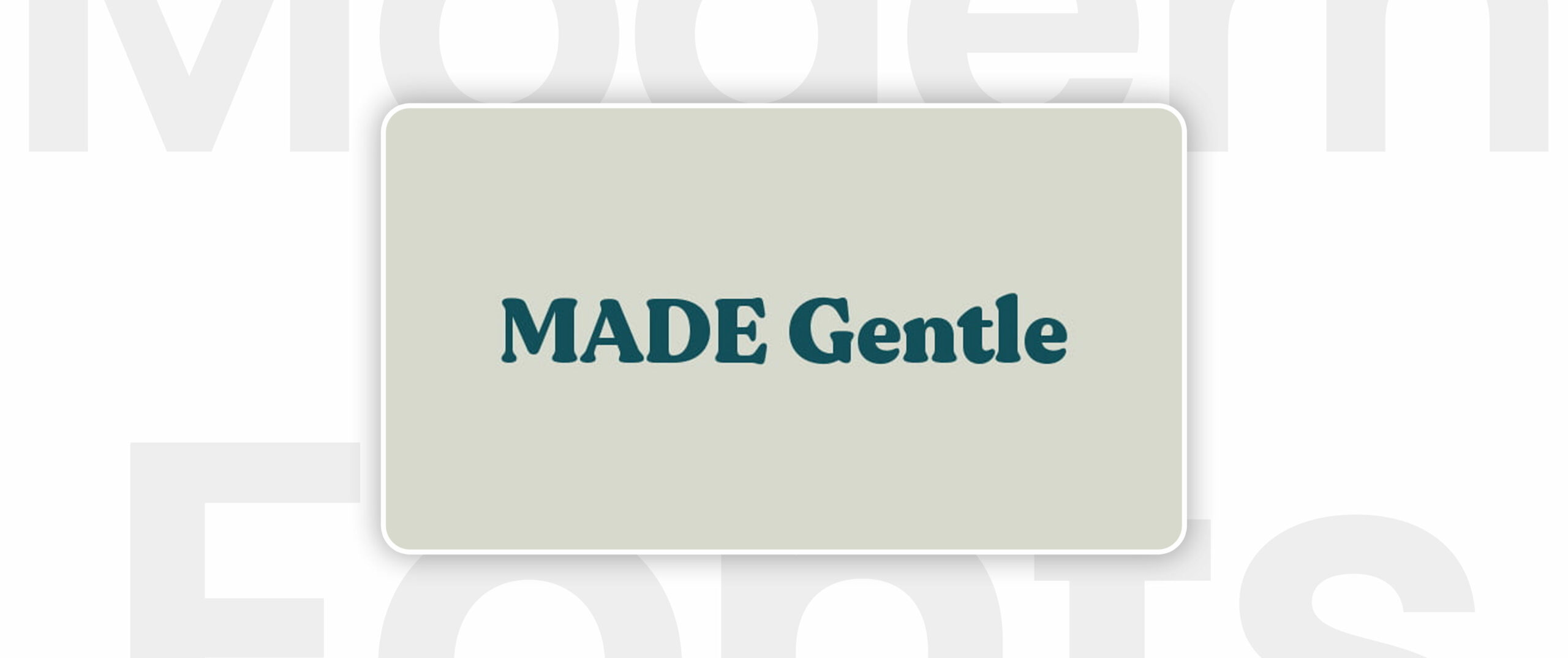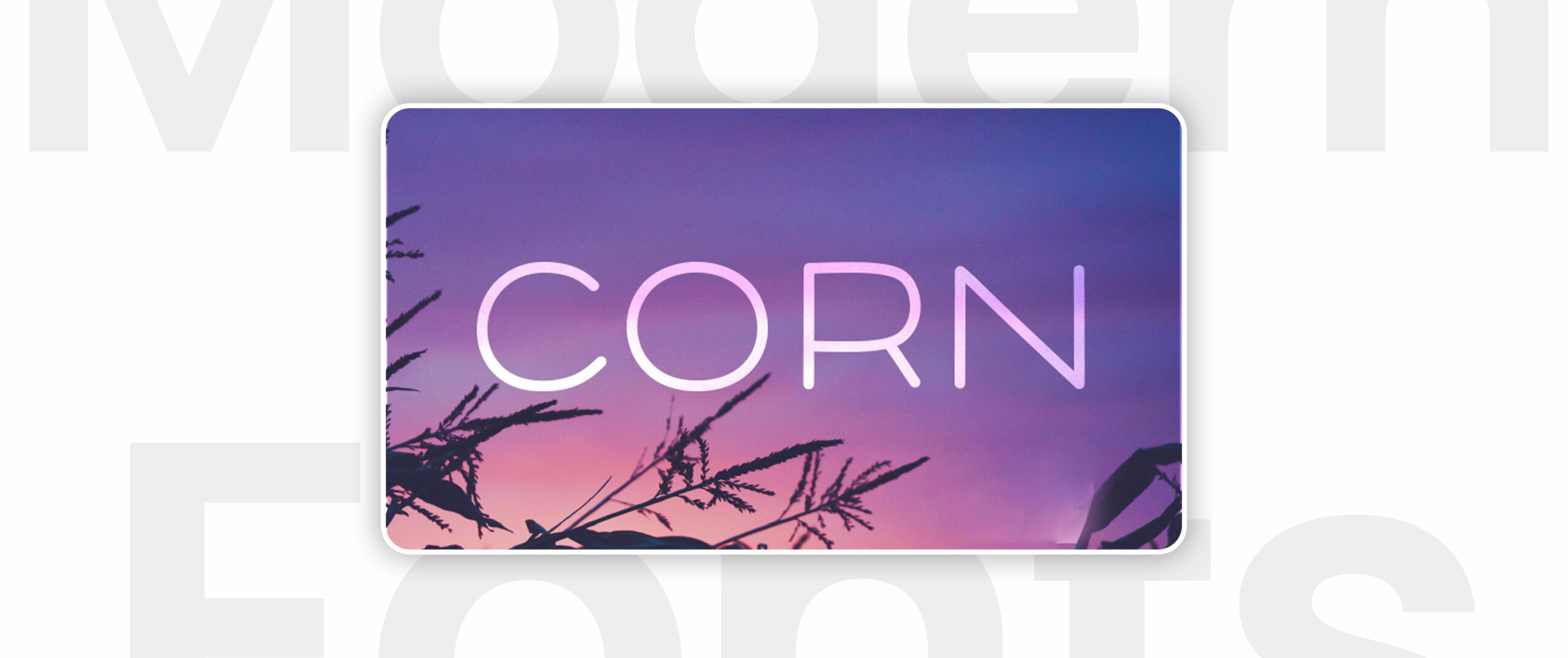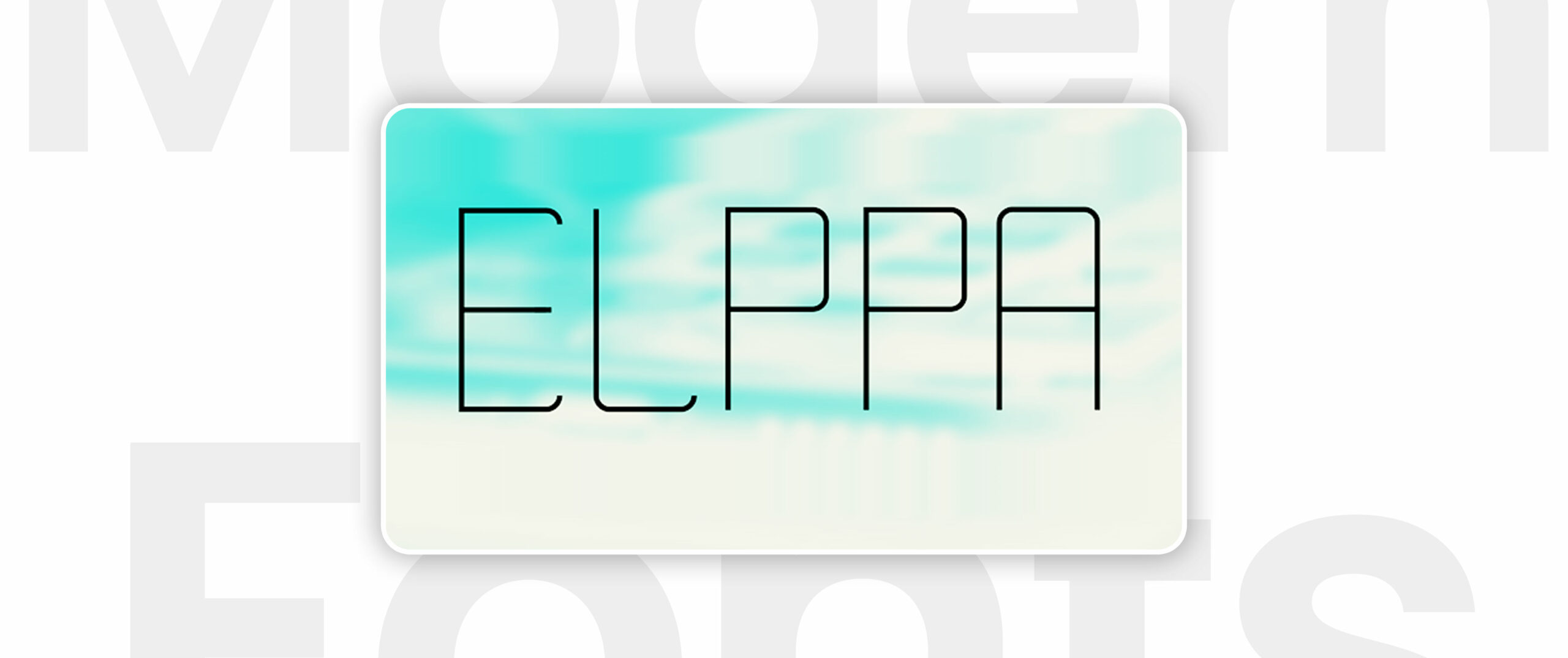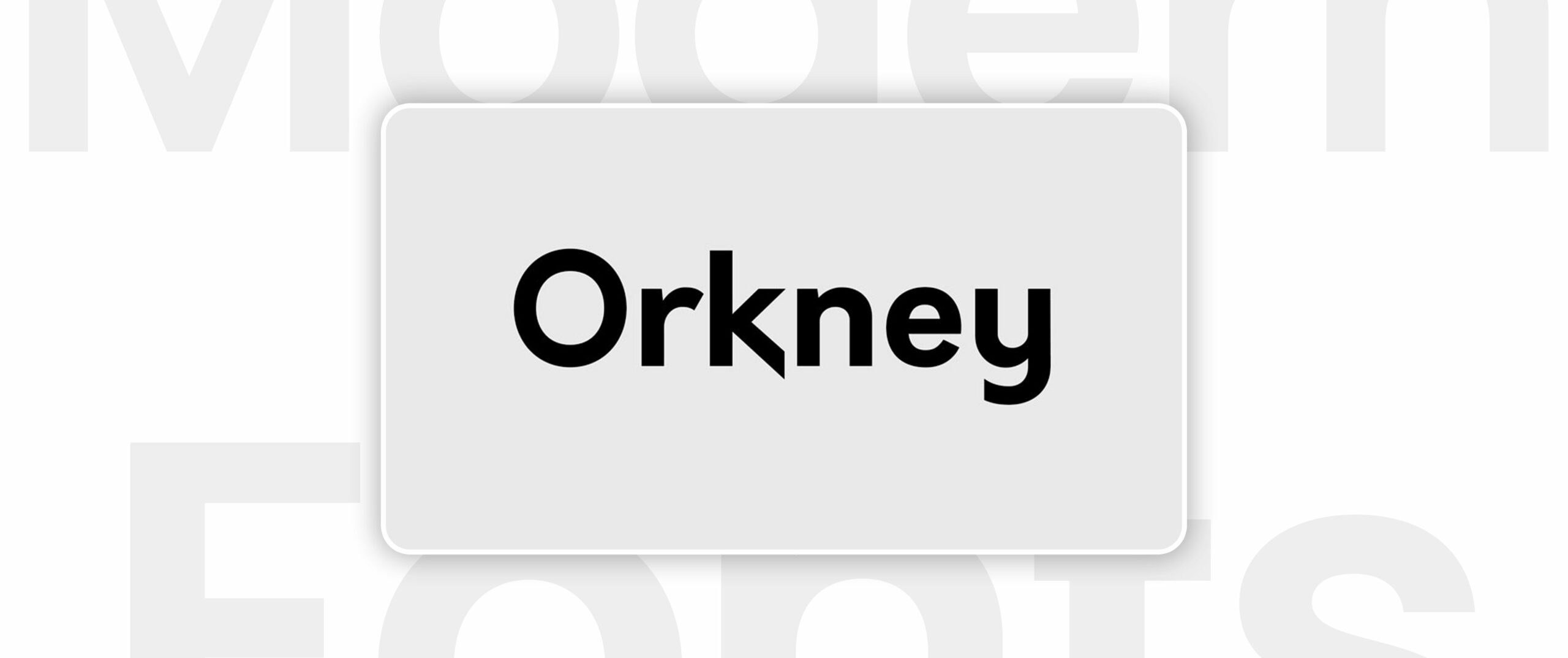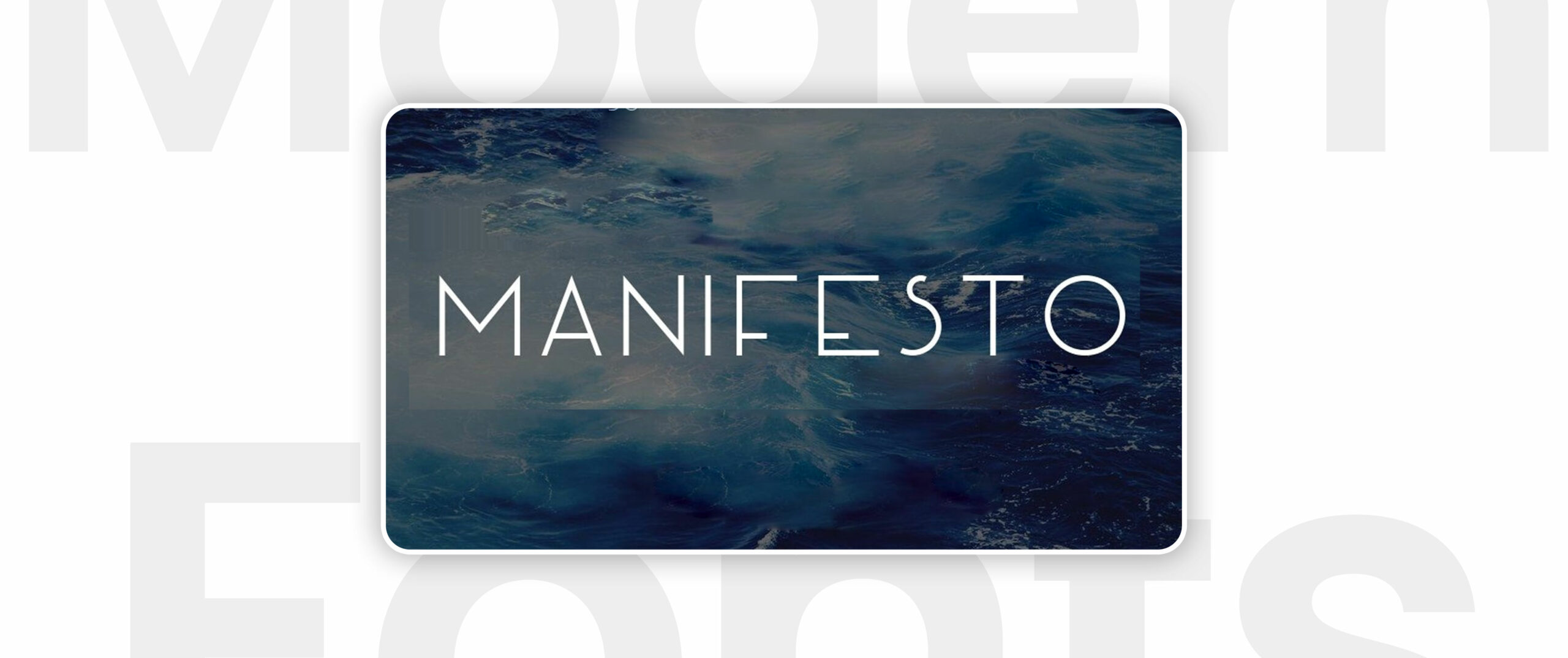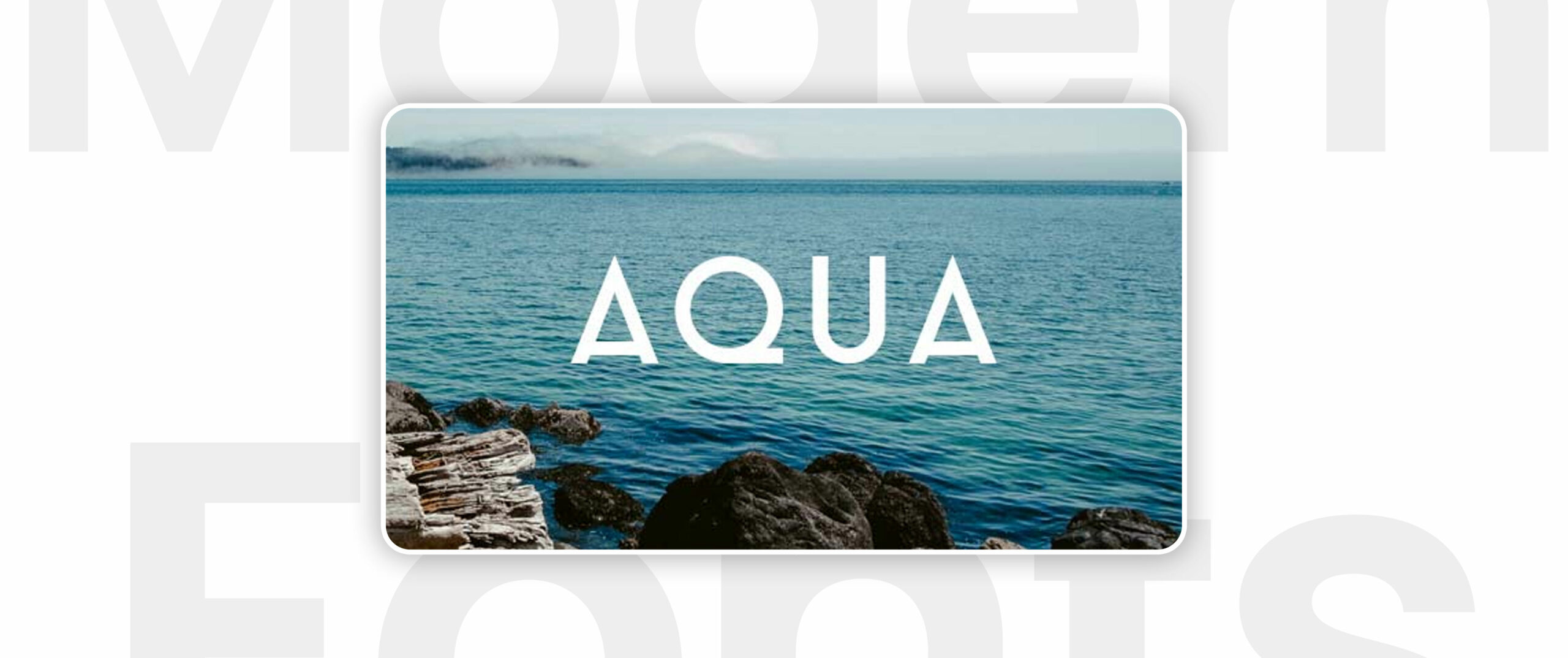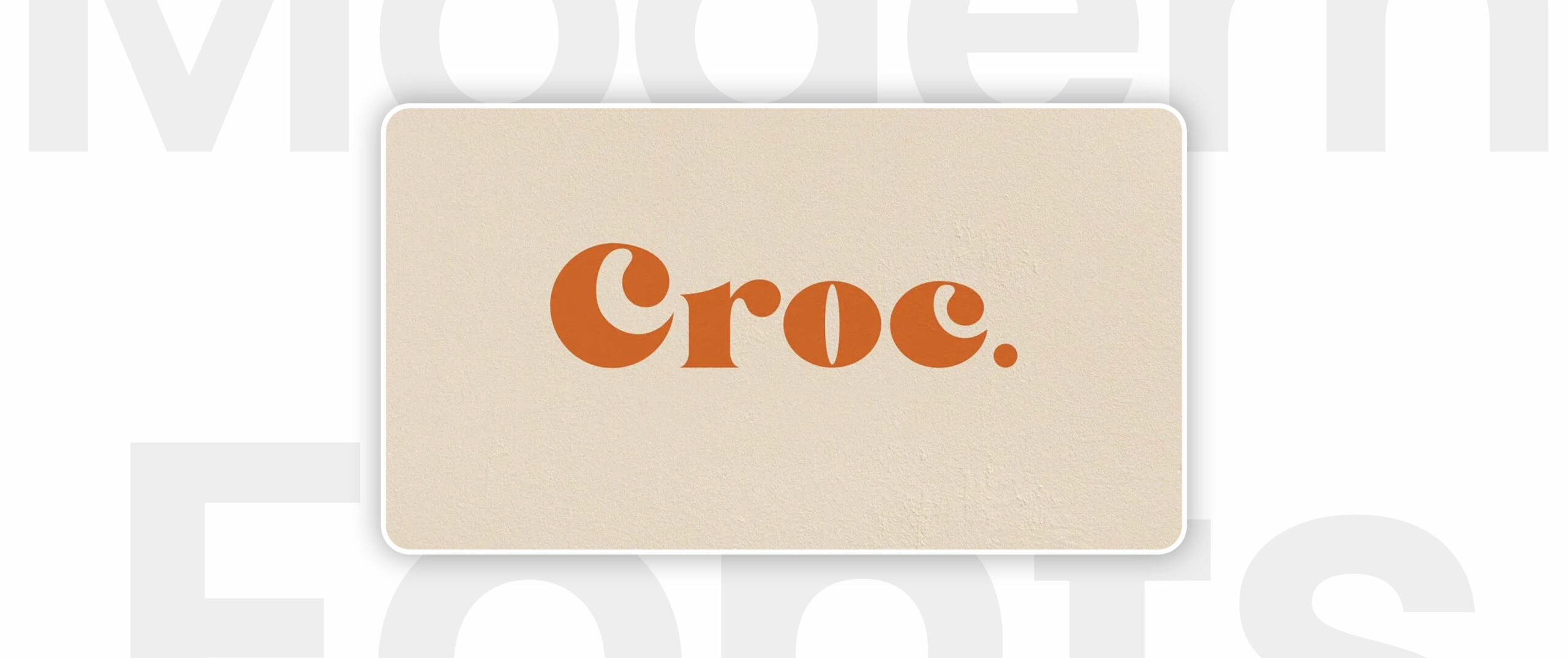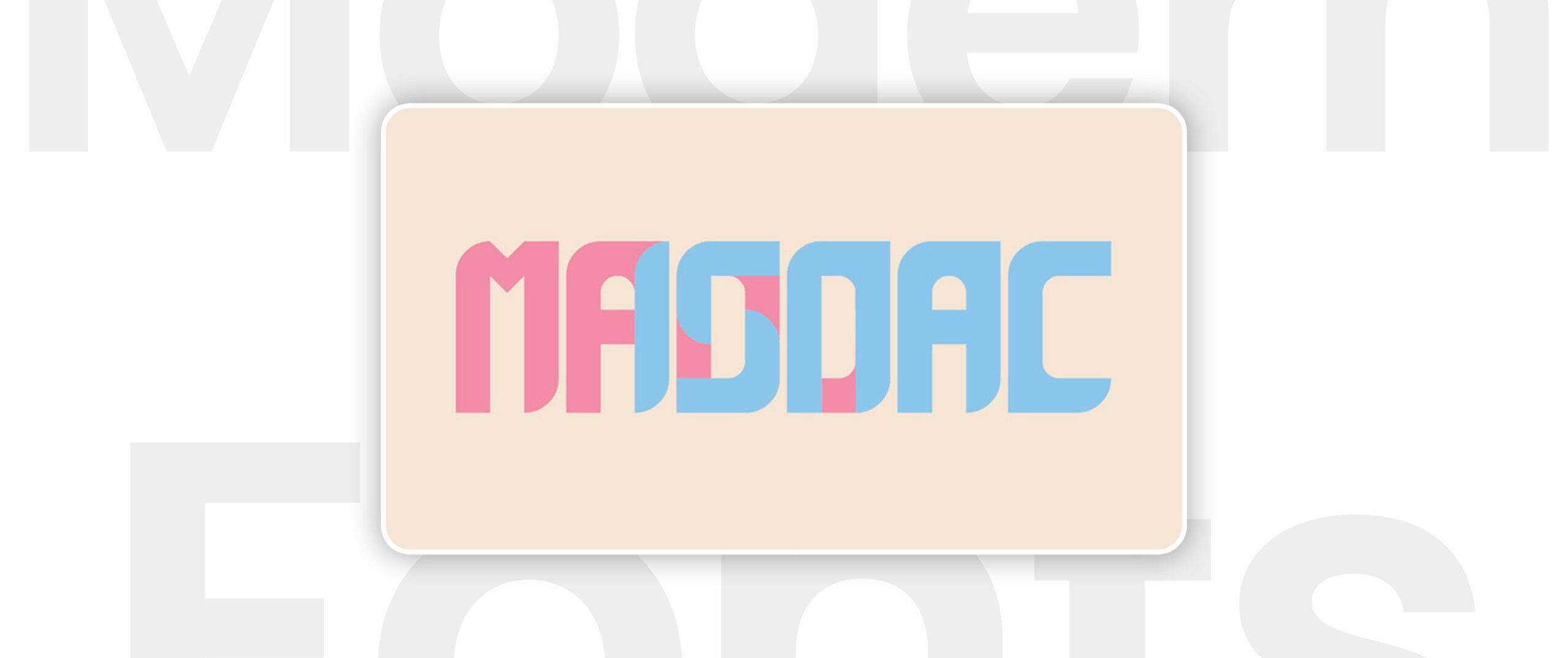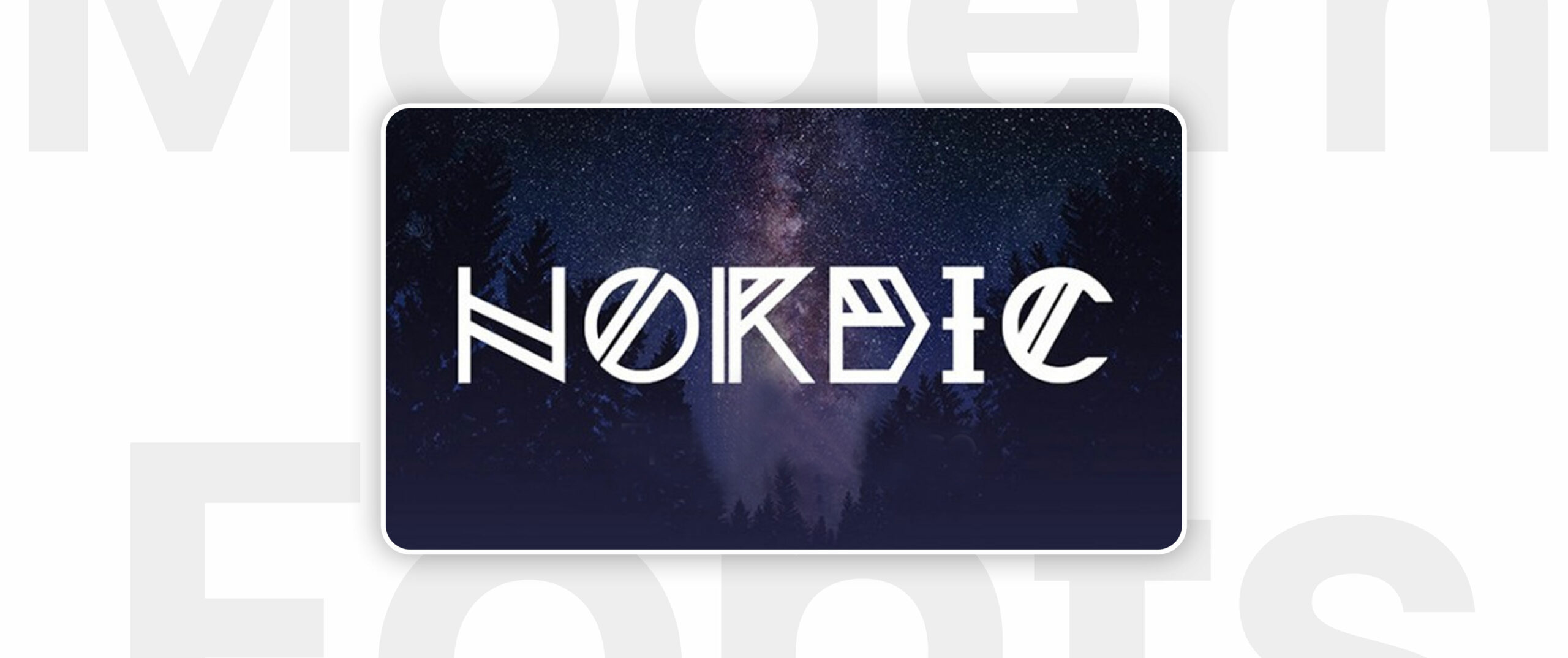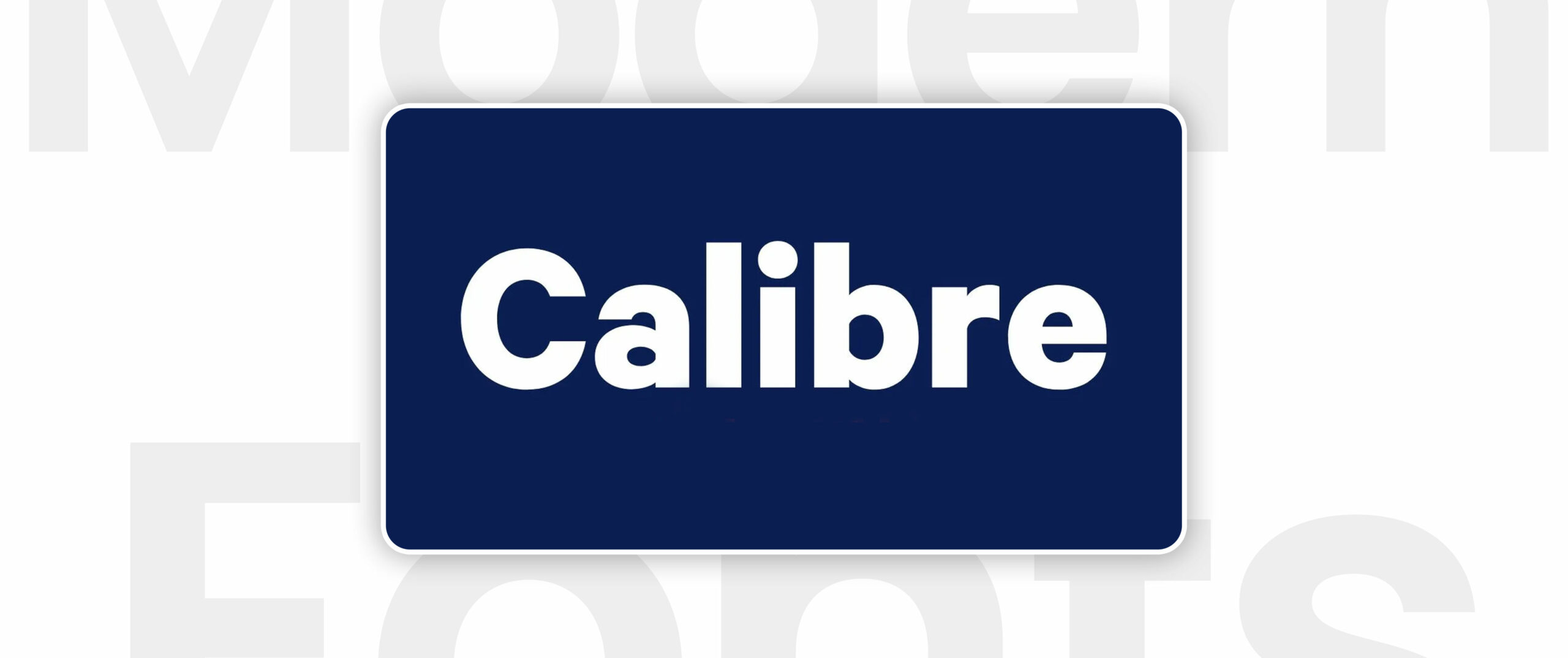
Top 24 Modern Fonts That Are Ruling the Design World
Choosing the right font can assist in designing a website or logo design that is visually pleasing and readable. However, given the abundance of fonts available, it can take time to decide where to begin.
This is where this blog post comes into play. We have put together a compilation of the 24 most popular modern fonts that dominate the design industry. All of these fonts are fashionable, flexible, and user-friendly. If you are a professional designer or simply aiming to upgrade the appearance of your website, you will definitely find the ideal font for your project.
Top 24 Modern Fonts of 2024
Following are the 24 most popular modern fonts. Stick with us to know which ones will make your designs pop!
Komoda
Komoda is a modern sans-serif typeface designed in a very minimalistic way. Because of its simplicity and geometrical structure, it is suitable for headlines, logos and website titles. It is hard to imagine that Komoda will not fit your project, whether a tech startup or a fashion brand.
Komoda font
Stoked
This hand-lettered font will add a dash of character to your creations – that is what you will get with Stoked. Due to its liveliness and dynamic character, it is perfect for headlines, social network illustrations and logos. Should you require an entertaining and cheerful font for your project, Stoked is the font of your choice.
Stoked font
Zafir
Next on our list is Zafir, a sans-serif vintage font that emanates modern but has a pinch of vintage in it. It has no dominant element and is simple and elegant; thus, it can be effectively used in all forms of designing, like the website and brand, as well as for printing and creating products. Depending on the formality of the text you are writing, whether it’s formal or informal, Zafir provides the best font required, be it professional, elegant or even readable.
Zafir font
Classy Marisa
Classy Marisa is another serif font that is inspirational, extraordinary, and radiates crisp and sleek elements. It fits well with invitations, wedding cards, and any other luxurious brand, as it is curvy and very classic. These samples, particularly Classy Marisa, are perfect for anyone wishing a slim, classy and timeless appearance.
Classy Marisa font
Canter
Canter is a completely non-serif typeface font that carries a certain punch. It also has a very striking and liberal style, which is very suitable for making decent headlines and high-contrast images. If you want a font that will scream out loud that you have arrived, then Canter font is the way to go.
Canter font
Lucky
Lucky is a script font that makes a design more friendly and has some sort of luck in it. It is uniquely fun and cursive, great for invitations, social networks, and branding element creation. Conversely, if you would like to bring an element of the designer’s personality into the work, Lucky is ideal.
Lucky font
Coves
Coves is a clean sans-serif font which gives simplicity and elegance at the same time. Firstly, it has clean lines and no clutter and is designed with adequate space in between, which makes it zone-friendly and adaptable to various screen sizes. Ideal for designing a logo and any other design requiring a sleek and minimalist outlook.
Coves font
Azonix
Azonix is another sans-serif font that is rather edgy and futuristic and is best used when you want your text to grab people’s attention. It also has a morbid geometric shape with rough corner edges, thus having an XX-century modern appeal. Perfect for making a statement on your images such as a headline, logos or designs that go with a game.
Azonix font
Arkhip
Arkhip is a modern serif font that can easily be described as being optimally designed and easy on the eyes. Because its design is based on the lettering from old printed books and magazines, yet it is provided with the conveniences of the contemporary world, it can be used for many things, including digital products and services and branding and print products. Due to its workmanship and simplicity, Arkhip has been an outstanding font among other fonts used by designers.
Arkhip font
Prime
It is one of the most popular modern fonts for modern logo design. This font type is best for headlines, logos, and website design due to its sleek and fresh look. Due to the availability of a variety of weights, it can be utilized to make a strong, unique statement that any type of text can have a less conspicuous problem solution.
Prime font
Ailerons
Ailerons are quite a daring and emotional typeface that will be suitable for the creation of emotionally intense materials. Due to its distinct shapes and vigorous character, it is ideal for headings, posters, and logos. Ailerons are also produced in different weights, which means you can easily choose something to fit the project you have in mind.
Are there any popular font pairing combinations for modern designs?
Some popular combinations include a sans-serif font paired with a serif font for a classic look, or two sans-serif fonts with different weights for a contemporary feel.